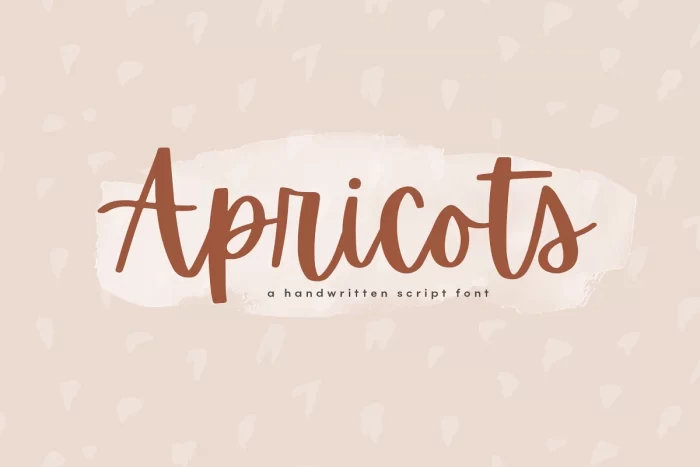
Apricots Font is a handwritten font with a fun, modern look! This font is perfect for modern projects, headings, blogs, logos, brandings, invitations and more! Accent characters are included.
Apricots Handwritten Script Font
This preview highlights the unique shapes and multi-height variations of the Apricots Script Font.